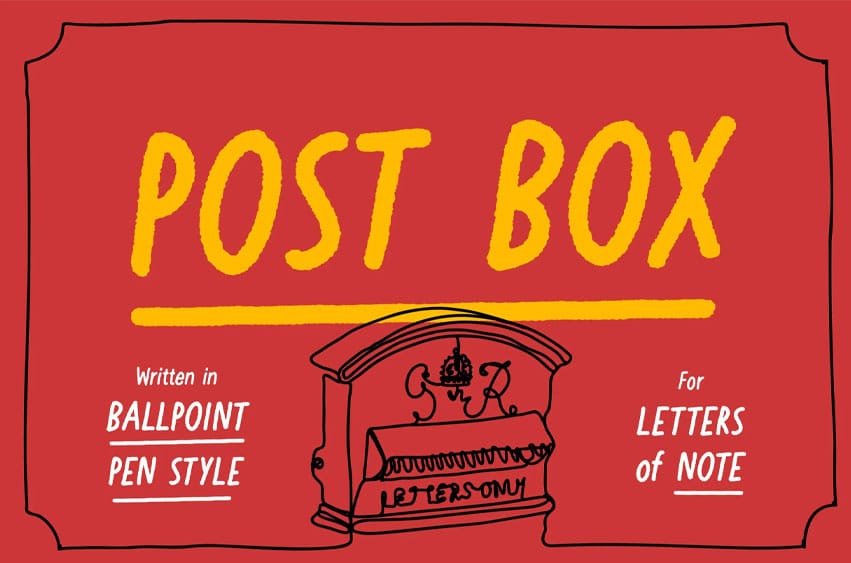
Post Box Font in a ballpoint pen style this neighborly sans serif is slightly condensed and slanted. Scribbled quickly but readable. Exact but still human.
Post Box comes in two styles Regular and Rough and with the 340+ glyphs it supports basic, western, central and south eastern latin languages